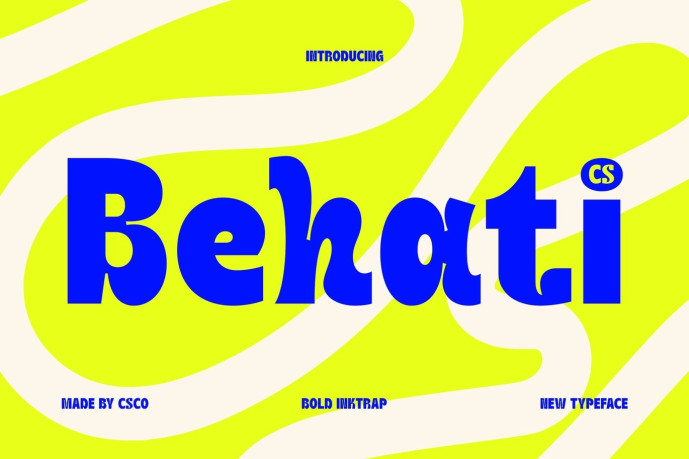
Behati – Inktrap Font
Designer: Craft Supply Co.
CS Behati – Bold Sans Serif Font: Where Strong Impact Meets Playful Inktrap Design Powerful Forms with Modern Clarity This is a bold sans serif font designed to deliver strong visual impact through its confident letterforms and contemporary structure. Its clean construction and balanced proportions ensure excellent readability, while its bold presence makes every word stand out with clarity and authority.
Playful Inktrap Features with Unique Character This font introduces a distinctive typographic personality that sets it apart from conventional sans serif fonts. These carefully crafted cuts and openings not only improve visual clarity but also add depth, charm, and modern character to each letterform. The result is a font that feels expressive, dynamic, and visually engaging while maintaining a clean and professional appearance.
Bold Design with Exceptional Readability Blending strong sans serif geometry with functional inktrap styling, this font achieves a balance between impactful design and practical readability. Its refined details enhance the overall aesthetic without compromising legibility, making it suitable for both large scale displays and prominent branding applications.
Perfect for Displays, Posters, Headlines, and Titles Ideal for display typography, posters, branding projects, titles, advertising campaigns, packaging, social media graphics, merchandise, event promotions, and creative visual identities. Its distinctive inktrap forms make it ideal for logos, headlines, and promotional materials that seek to communicate confidence, creativity, and modern appeal.